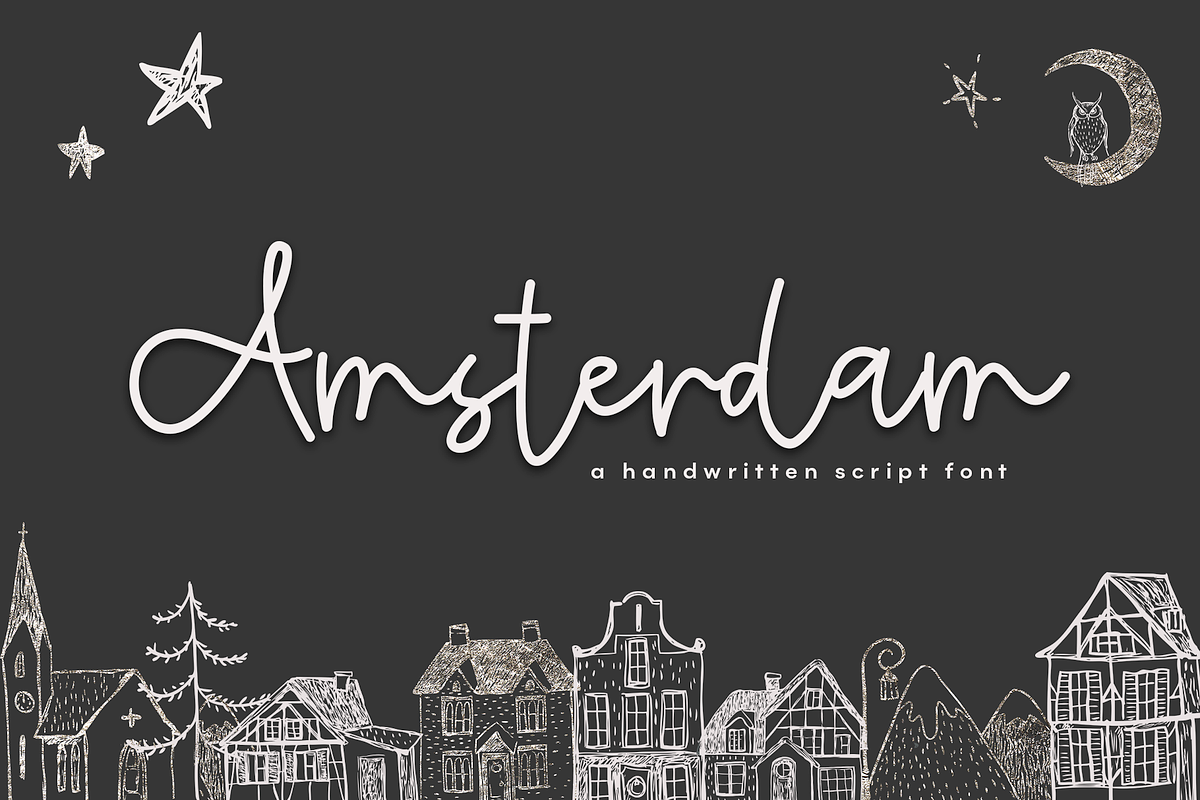
Amsterdam | Handwritten Script Font Free Download
Amsterdam Handwritten Script Font Free Download is a stylish and elegant script typeface that emulates natural handwriting. With its fluid strokes and balanced curves, Amsterdam is perfect for projects that require a personal and sophisticated touch, such as wedding invitations, branding materials, logos, and social media graphics.
Designed by Lettersiro Studio, Amsterdam Handwritten Script Font Free Download offers multiple styles, including variations like One, Two, Three, and Four, each with slant options. This versatility allows designers to choose the perfect style to complement their creative vision.